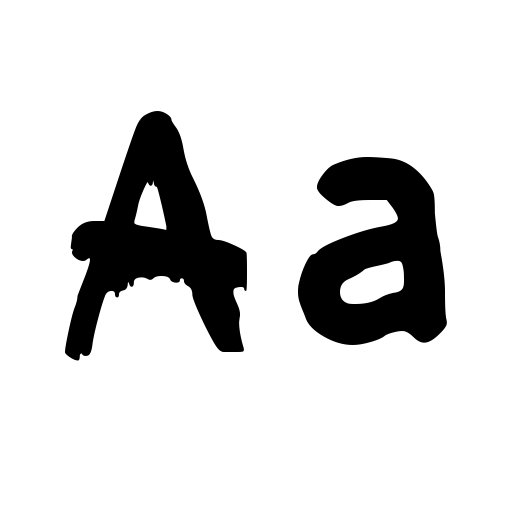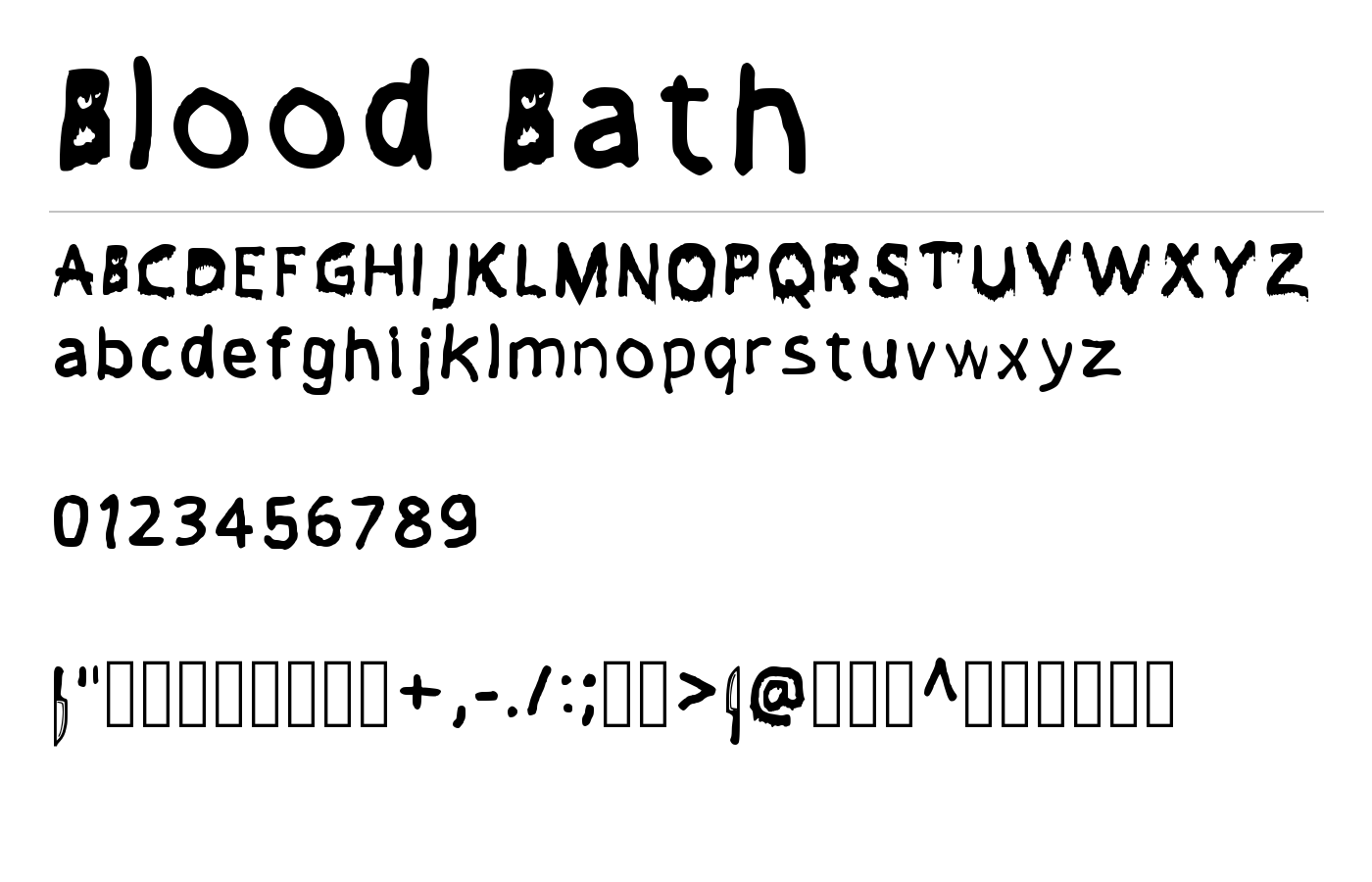
Blood Bath is a playful and spooky sans serif font with uneven, hand-drawn strokes and quirky letterforms that evoke a creepy, horror-themed vibe. Its irregular shapes and rough edges give it a casual yet eerie personality, perfect for Halloween graphics, horror posters, or any design needing a fun but unsettling touch. This font works best in headlines and decorative use where its distinct style can stand out and add character.
Blood Bath Font
About Blood Bath Font